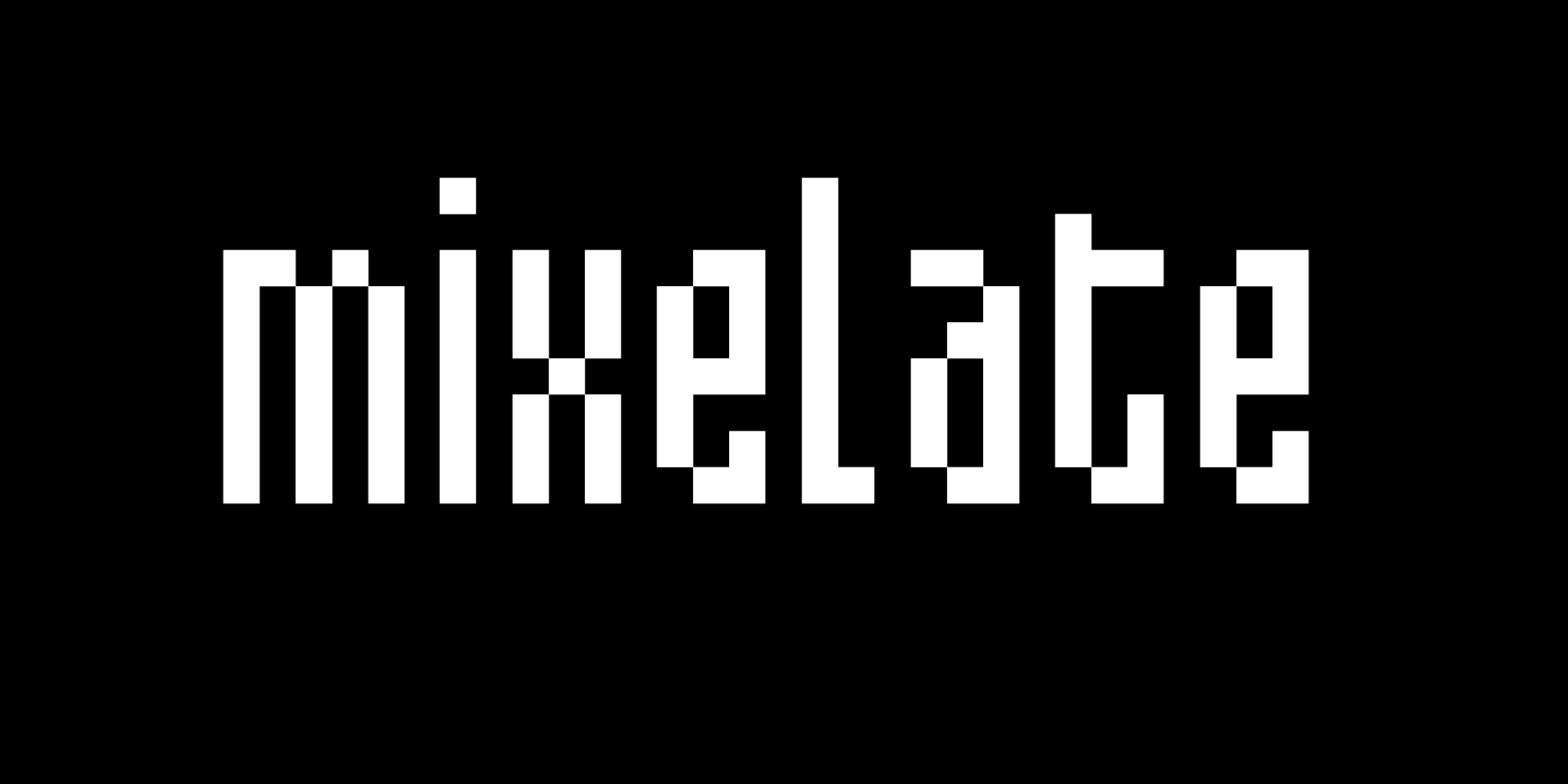
When I designed the font Redensek, it was a big hit with people, but I figured after that, there wasn't anything left to prove in the pixelated font department. A year later, I said to myself, "What about the people that like to type windy messages on their webcam captures?" So I made a super skinny webcam font for them. Thanks to everyone who sent pics in. Unfortunately, in the end, I decided not to put the captures of the gals who scrawled Fontalicious across their chest, as I didn't want to offend anyone. I, on the other hand, wasn't offended in the slightest. I printed them out and stuck them all over Cubert, my trusty G4 Cube. Oooh la la!